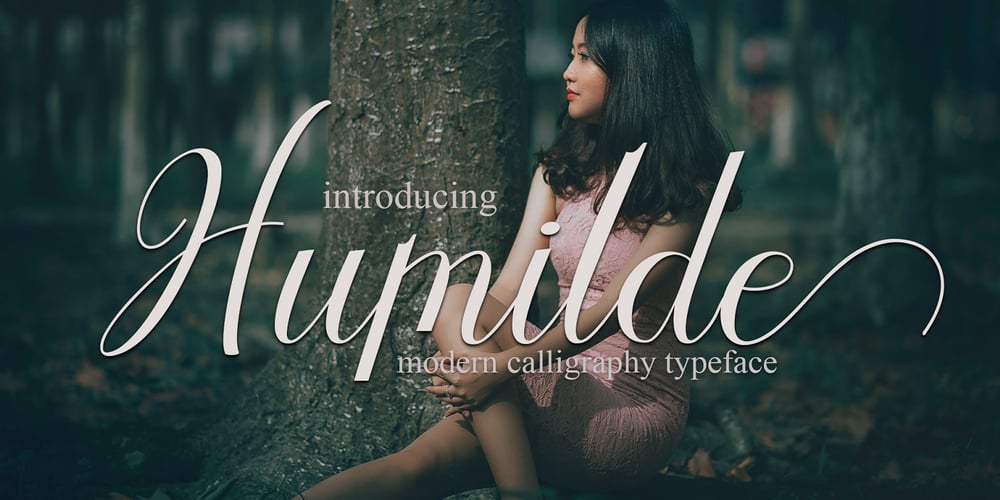
Humilde Regular Font Family was designed by Muhammad Rizal and published by MrLetters. Humilde Regular contains 1 styles and family package options. IntroducingHumilde Script a new fresh & modern script with a handmade calligraphy style, decorative characters So beautiful on invitation like greeting cards, branding materials, business cards, quotes, posters, and more!!If you have any question, don’t hesitate to contact me by email hello.mrletters@gmail.com Thanks and happy designing :-)Thank You for purchase!